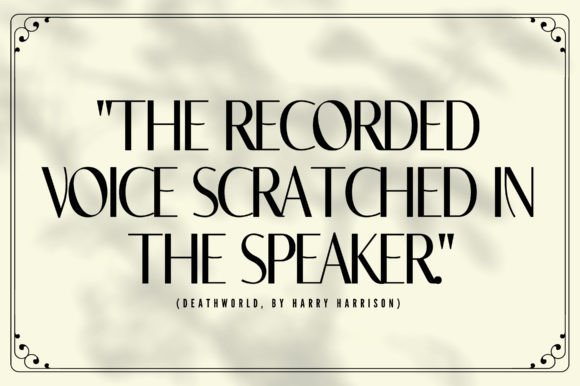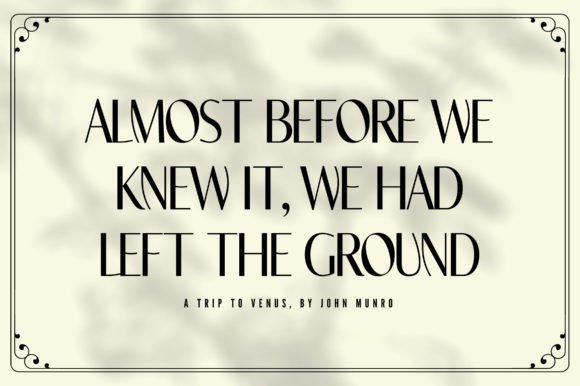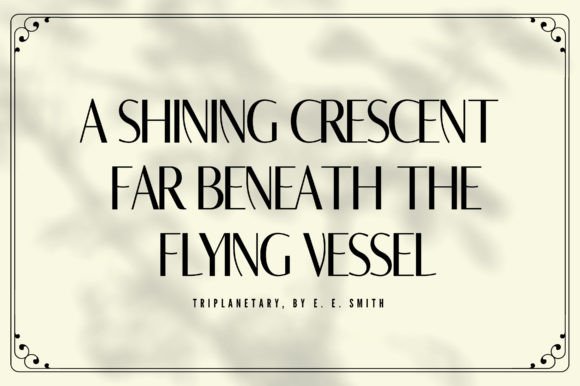
Introduction to Jennet Font
Have you ever stared at a blank page, waiting for inspiration to strike? For designers, this moment can be both exhilarating and intimidating. But what if you had the perfect tool to spark your creativity? Enter the Jennet Font, a sleek and sophisticated sans serif font that’s sure to elevate your next design project.
With over 604 glyphs at its disposal, the Jennet Font is the ultimate design resource for creatives. Its clean lines and modern aesthetic make it perfect for everything from logos to web design to editorial layouts. And with its multilingual support, you can effortlessly communicate with audiences across the globe. Whether you’re working on a high-quality brochure or creating a website for an international brand, the Jennet Font has got you covered.
Key Features of Jennet Font
- High-quality design for creative projects, including digital art and graphic design.
- Unique and stylish design elements, including intricate details and ornate flourishes, set it apart from other fonts.
Honest Review: Jennet Font
I recently had the chance to work with Jennet Font, and I’m excited to share my experience with you. As a designer, I’m always on the lookout for high-quality design resources that can elevate my creative projects.
- ✨ The Jennet Font offers a beautiful, elegant design that’s perfect for a variety of creative projects, from fashion to home decor.
- ⚠️ The font may not be suitable for projects that require a more modern or edgy feel, as Jennet Font has a more classic, elegant design.
Overall, I’m impressed with Jennet Font and would definitely recommend it to designers looking for a high-quality, free design resource. While it may have some limitations, the benefits far outweigh the drawbacks, making it a valuable addition to any design library.
The Jennet Font is ideal for:
Graphic design projects, such as logos, business cards, and brochures.
Web design projects, including website headers and footers.
Print design projects, like posters, flyers, and invitations.